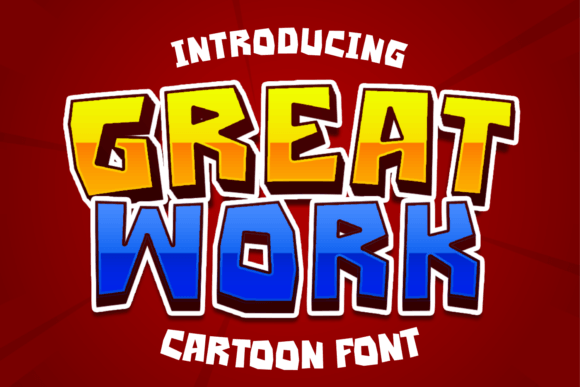
Great Work Font: The Ultimate Choice for Bold and Attention-Grabbing Text
When it comes to creating visually appealing and effective text, the font used plays a crucial role. Among the numerous fonts available, Great Work font stands out for its bold, cartoon-like design that is perfect for headlines, titles, logos, and any display use. In this article, we’ll explore the features, benefits, and uses of Great Work font, and why it’s an excellent choice for designers and marketers looking to make a lasting impression.
What is Great Work Font?
Great Work is a bold cartoon font designed to make a statement. Its high-impact design draws the eye and creates a sense of urgency and excitement, making it ideal for attention-grabbing text. The font’s bold and playful style is perfect for creating visually appealing headlines, titles, and logos that leave a lasting impression on the viewer.
Key Features of Great Work Font
- Bold and High-Impact Design: Great Work font features a bold and high-impact design that grabs attention and creates a sense of urgency.
- Cartoon-Like Style: The font’s cartoon-like style adds a playful touch, making it perfect for designs that require a fun and youthful approach.
- Versatile: Great Work font is versatile and can be used for various design projects, including headlines, titles, logos, and display text.
- Easy to Read: Despite its bold design, Great Work font is easy to read, making it perfect for use in a variety of contexts.
Benefits of Using Great Work Font
Using Great Work font offers several benefits, including:
- Attention-Grabbing: The font’s bold design grabs attention and creates a sense of urgency, making it perfect for headlines and titles.
- Improved Readability: Great Work font is easy to read, even at small sizes, making it perfect for use in a variety of contexts.
- Enhanced Creativity: The font’s playful style adds a creative touch to designs, making it perfect for projects that require a fun and youthful approach.
- Time-Saving: Great Work font is a pre-designed font that can be easily integrated into designs, saving time and effort.
Uses of Great Work Font
Great Work font is perfect for a variety of design projects, including:
- Headlines and Titles: The font’s bold design makes it perfect for headlines and titles that require attention-grabbing text.
- Logos: Great Work font is perfect for creating visually appealing logos that leave a lasting impression.
- Display Text: The font’s high-impact design makes it perfect for display text that requires a bold and attention-grabbing approach.
- Advertising: Great Work font is perfect for advertising projects that require attention-grabbing text.
Tips for Using Great Work Font
Here are some tips for using Great Work font effectively:
- Use it Sparingly: Use Great Work font sparingly to avoid overwhelming the viewer.
- Combine with Other Fonts: Combine Great Work font with other fonts to create a visually appealing design.
- Adjust Font Size: Adjust the font size to ensure that the text is easy to read.
- Experiment with Colors: Experiment with different colors to find the perfect combination that works with Great Work font.
Great Work font is a bold and attention-grabbing font that is perfect for headlines, titles, logos, and display text. Its high-impact design and playful style make it an excellent choice for designers and marketers looking to make a lasting impression. With its versatility, ease of use, and attention-grabbing design, Great Work font is a must-have for any design project.
- What is Great Work font?: Great Work font is a bold cartoon font designed for headlines, titles, logos, and display text.